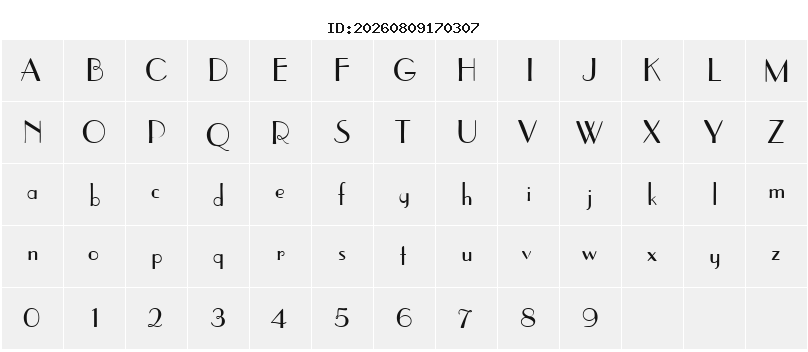
About Parisian DB.ttf
Parisian DB.ttf is a modern, elegant sans-serif font designed for ultimate readability and visual harmony. Perfect for branding, headlines, web design, and print materials.